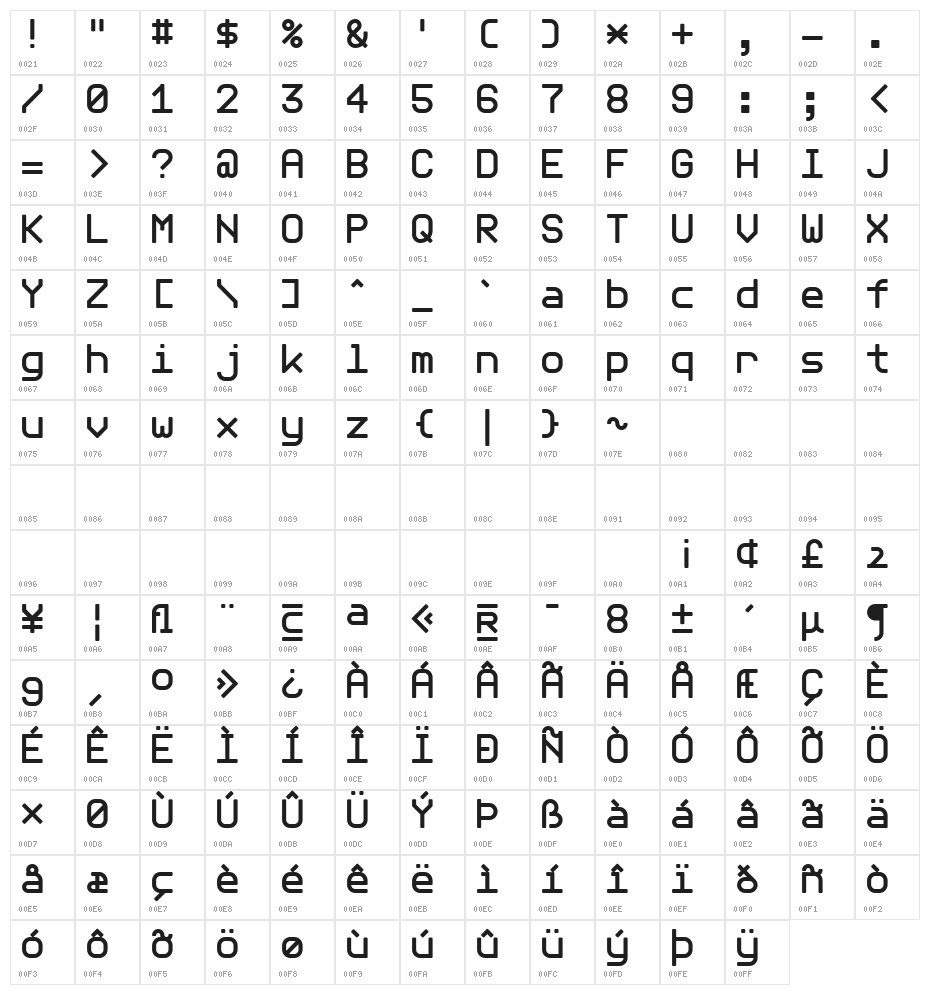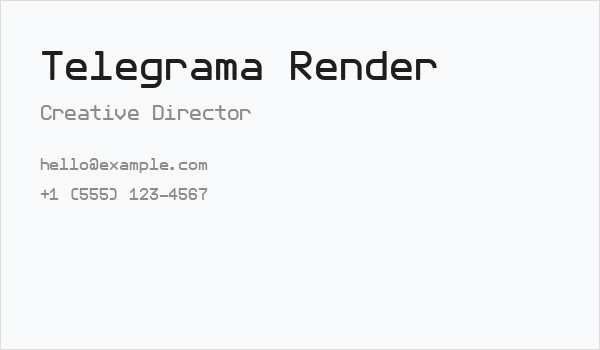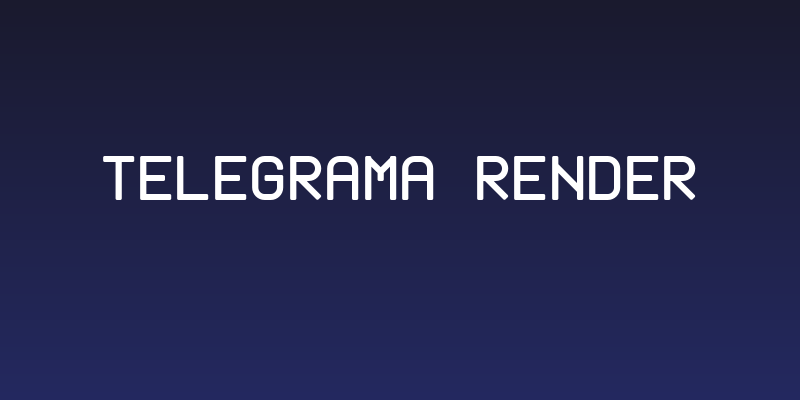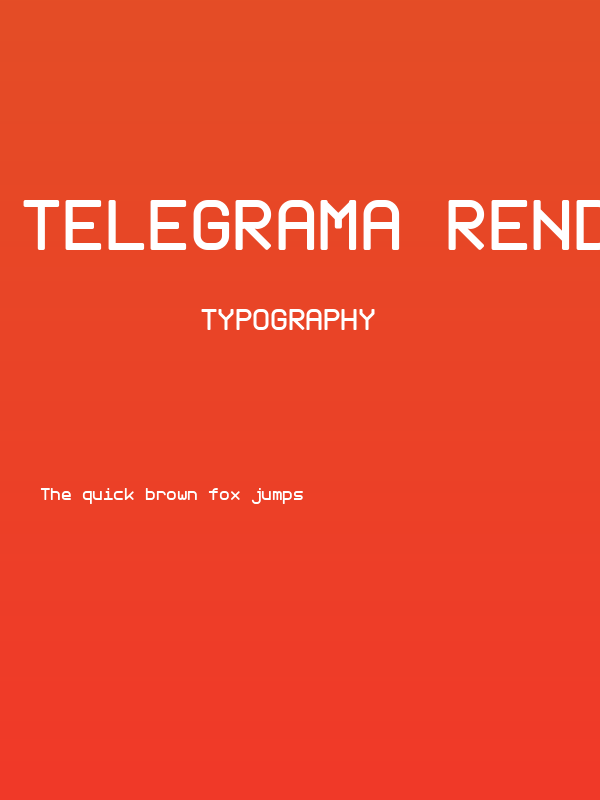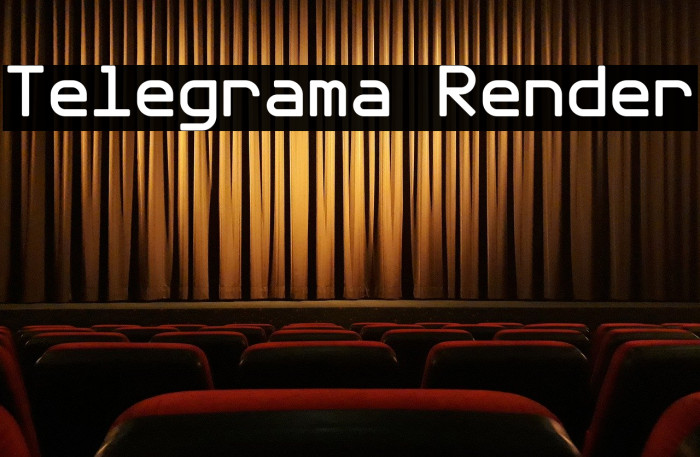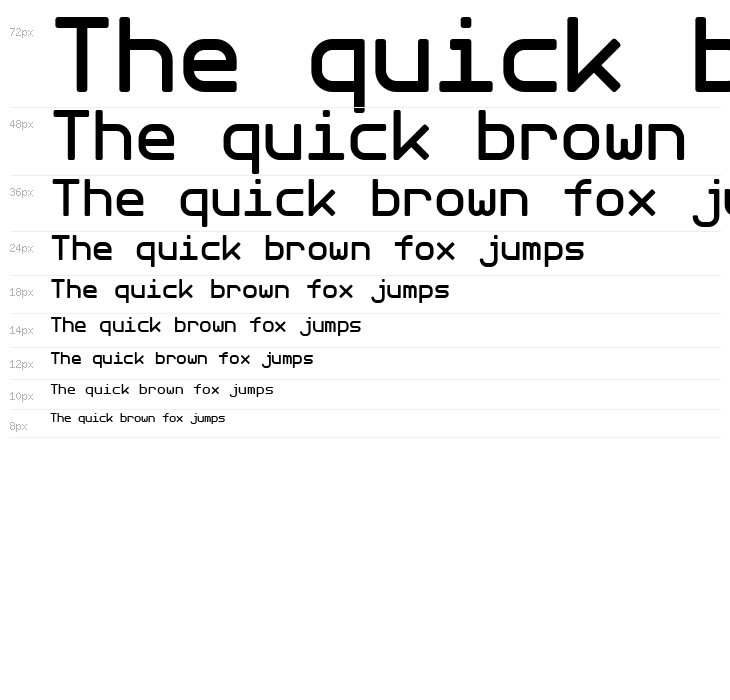
Telegrama Render Font
Telegrama Render Description
This font features a modern, geometric style with a clean and minimalistic appearance. The characters are constructed with uniform stroke widths, giving it a monospaced feel, although it is not strictly monospaced. The rounded edges and consistent line thickness contribute to a friendly and approachable look. The uppercase letters are bold and prominent, while the lowercase letters maintain a similar structure with slightly reduced height. Numerals are clear and easy to read, matching the overall style of the alphabet. Special characters are well-integrated, maintaining the geometric and rounded aesthetic.
| Use Case | Headlines, Logos, Digital interfaces |
| Proposed Projects | Ideal for tech-related branding, user interfaces, digital content, and modern advertising. |